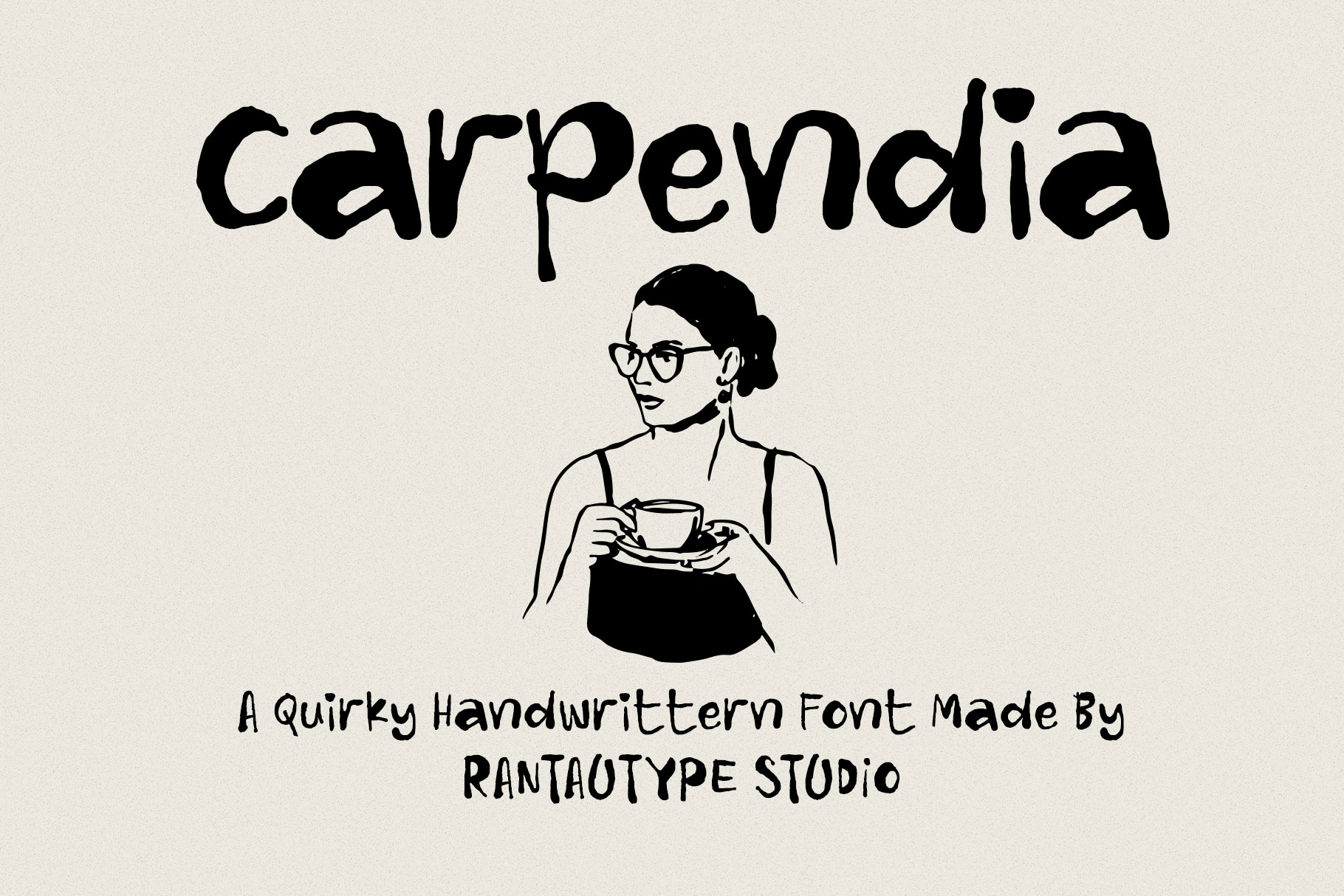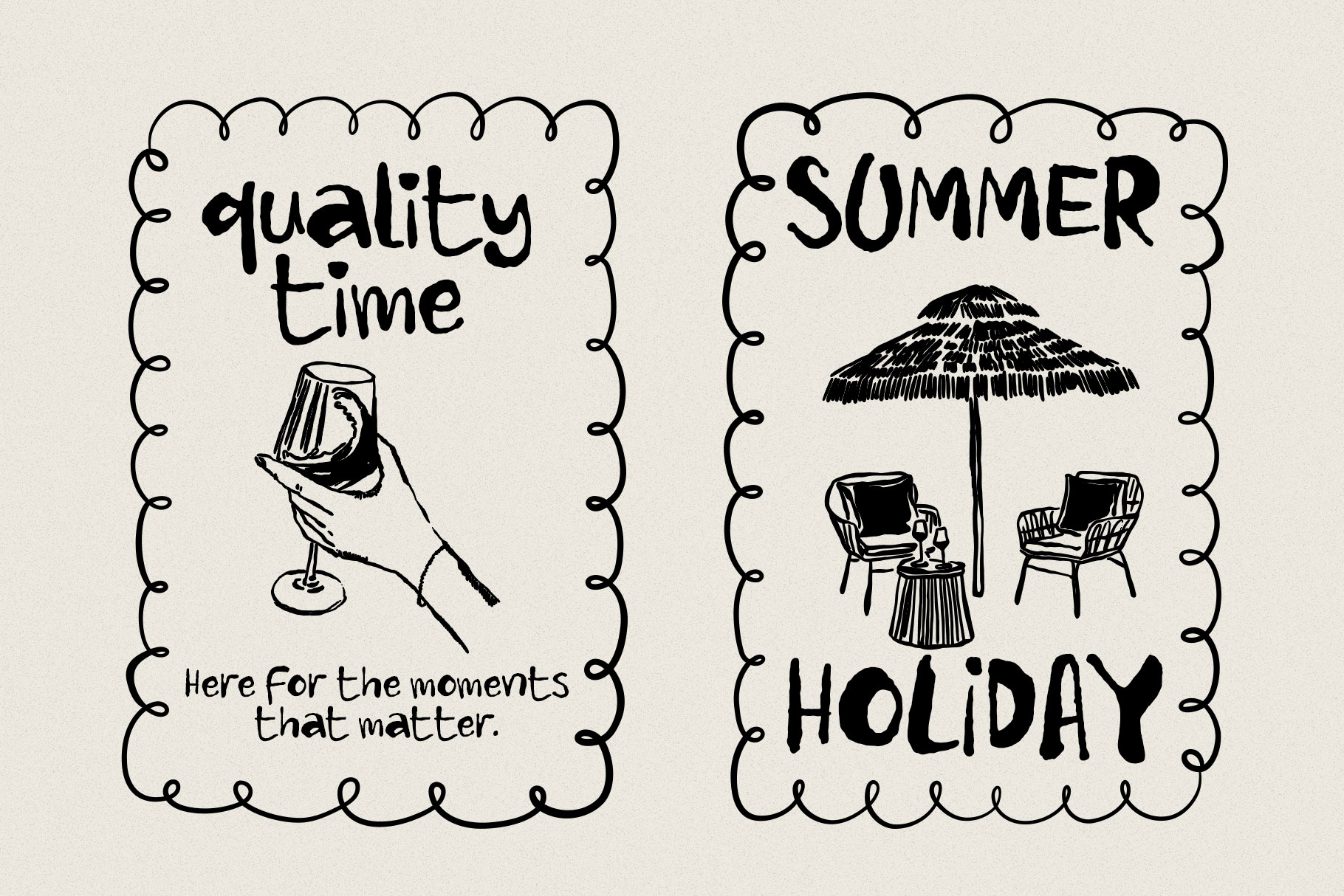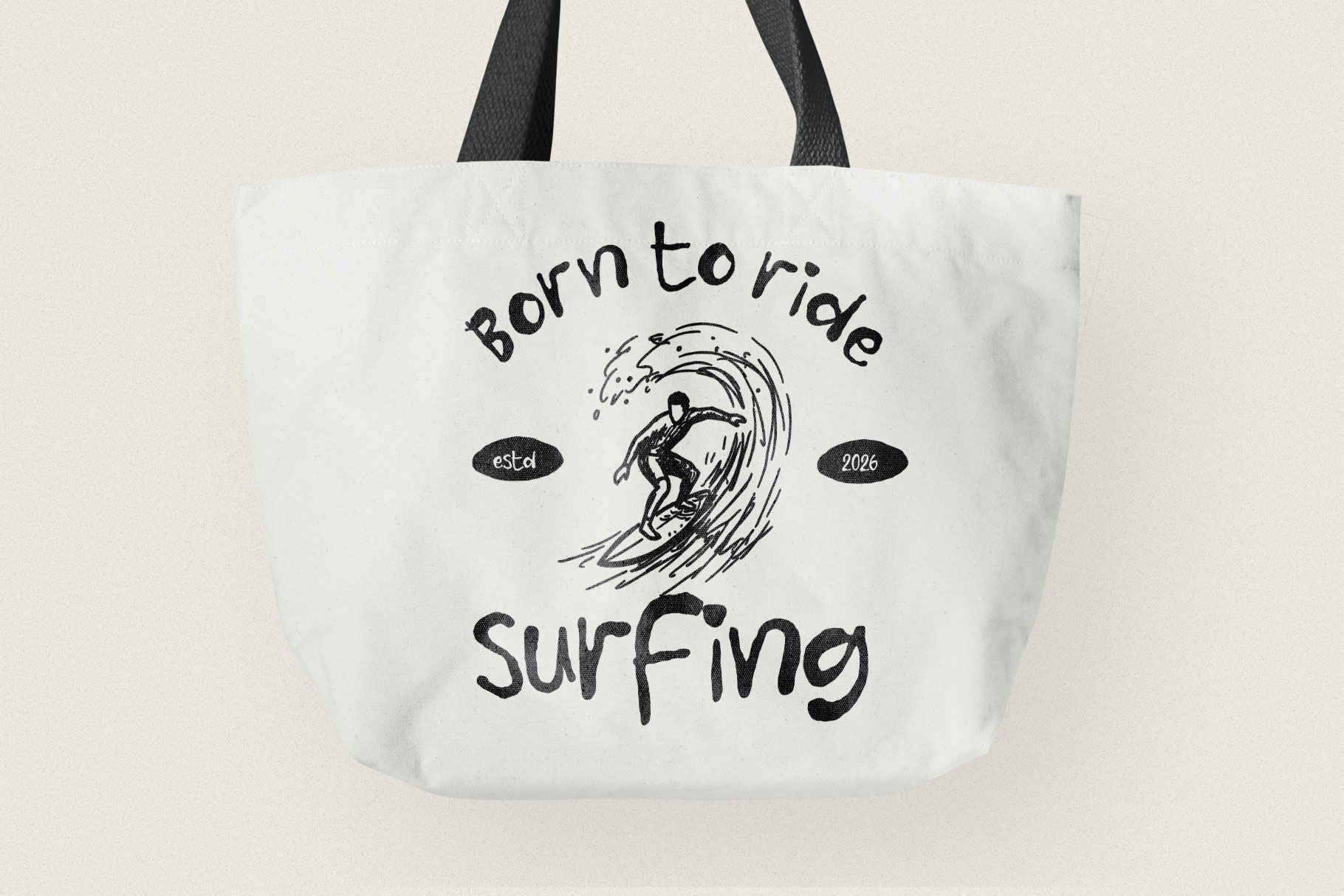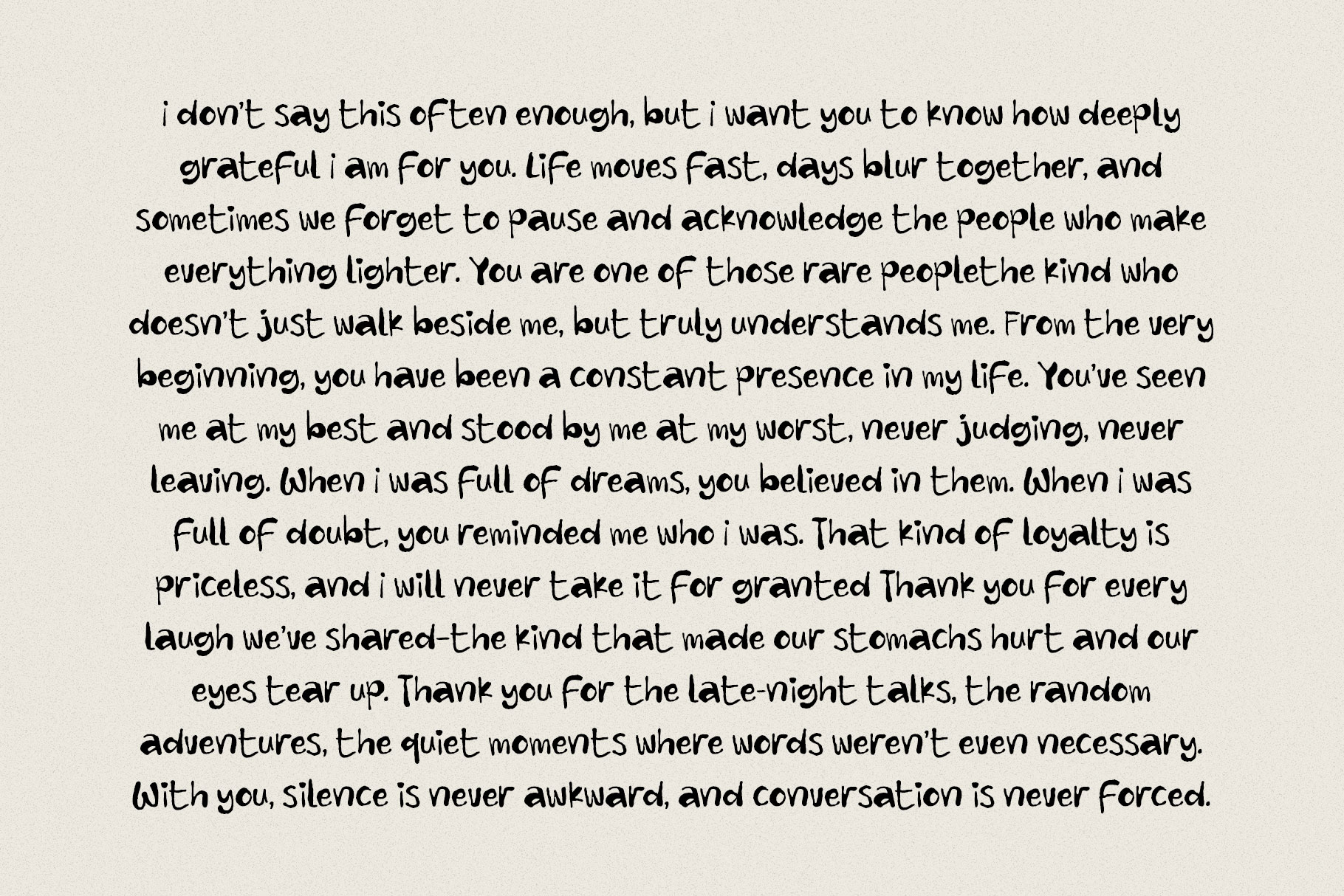
Carpendia A Quirky Handwritten Font
Carpendia is quircky handwritten font brings personality, warmth, and playful charm to any design it touches. Inspired by natural pen strokes and imperfect letterforms, this type of font celebrates individuality rather than precision.
Carpendia is a perfectly choice for any creative endeavor, creating, modern, lifestyle design such as logotype, title, cover, branding, invitations, wedding designs, display and magazine, social media posts, advertisements, printed quotes, product packaging, corporate brand, product designs, labels, photography, watermarks, special events and any other project with playful touch.